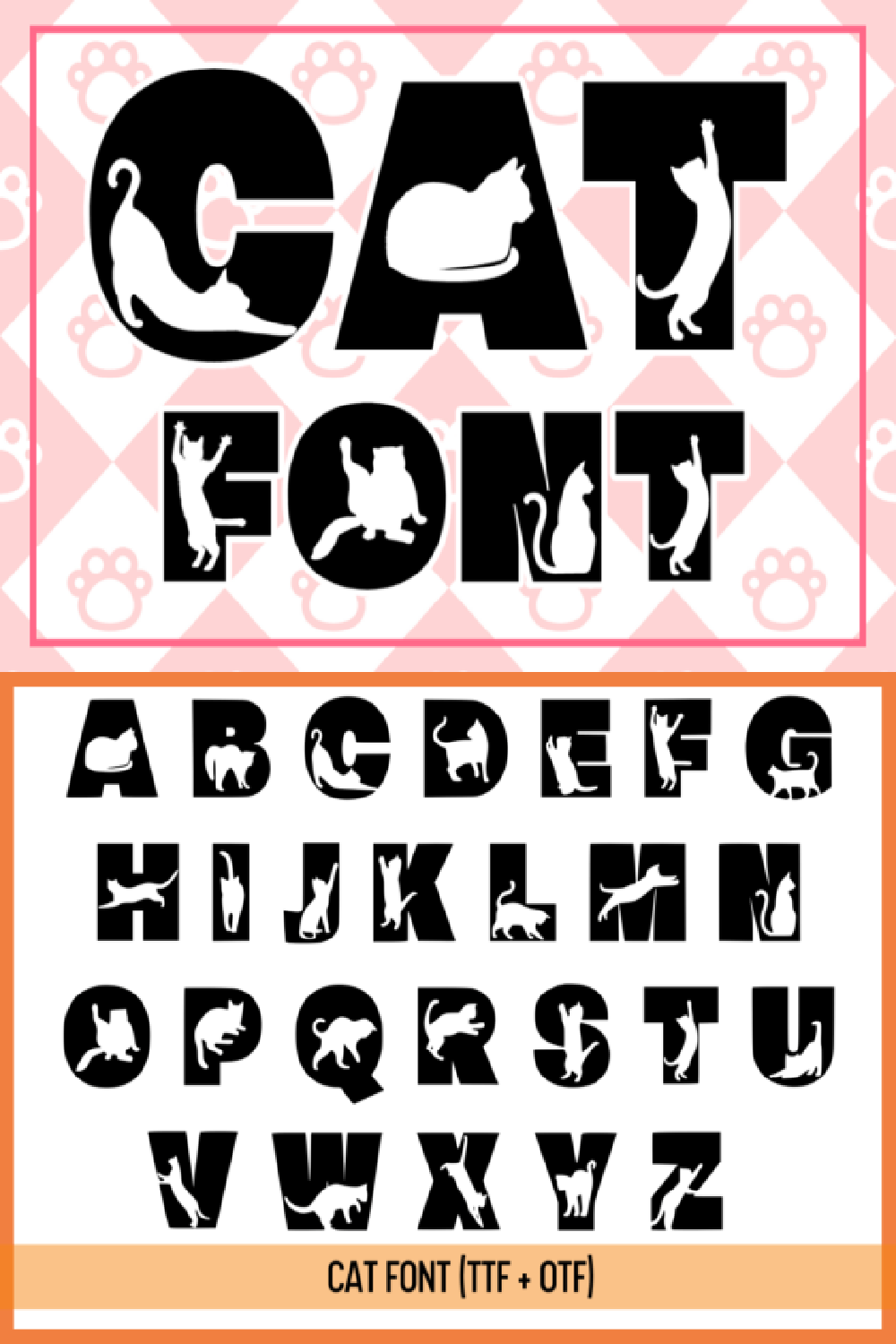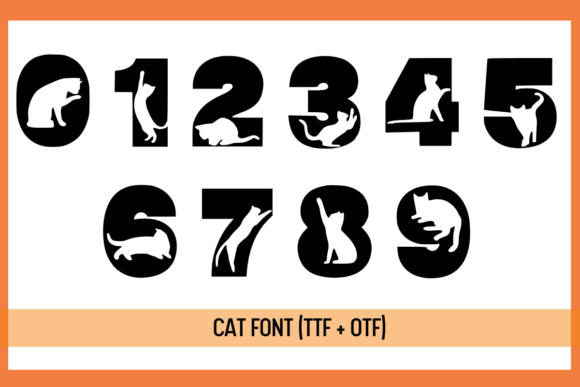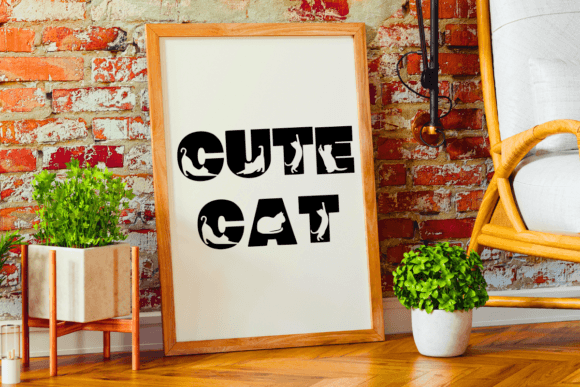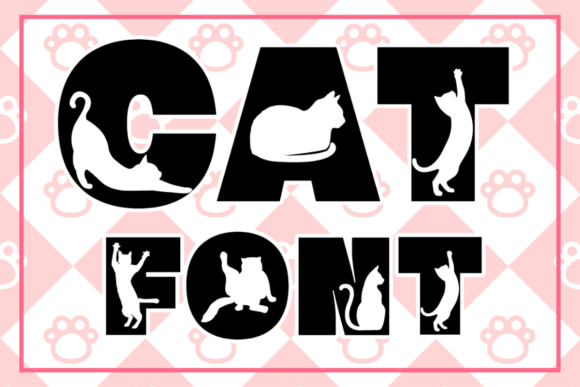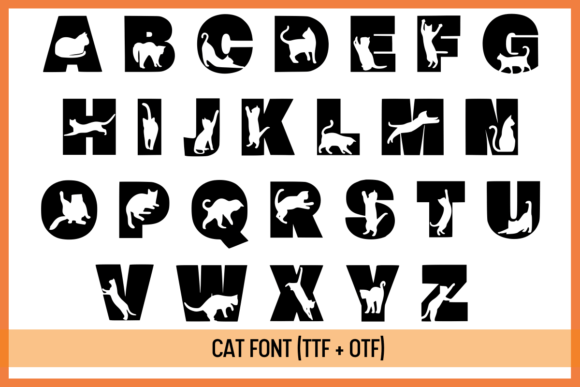
About the Cat Font
Let us introduce you to Cat Font, where timeless design meets modern craftsmanship. Cat is an incredibly unique decorative font. Masterfully designed to become a true favorite, this font has the potential to bring each of your creative ideas to the highest level!